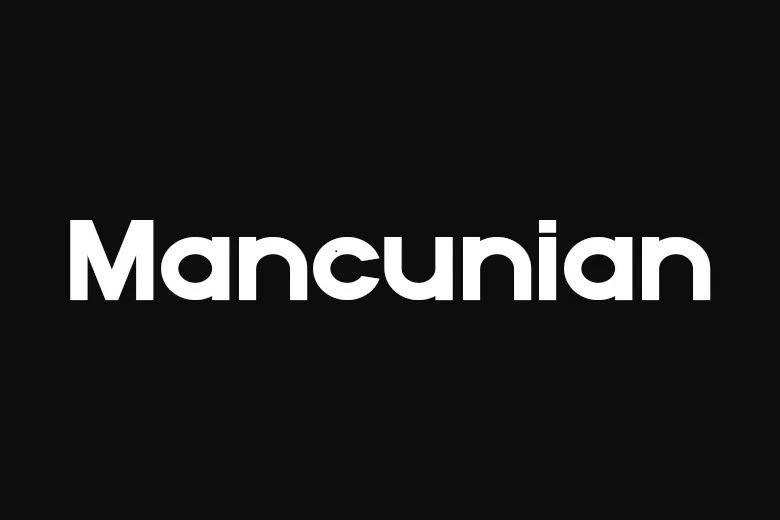
Mancunian Font
Mancunian is a modern sans serif font family that is perfect for almost any project, and will surely amaze you. Font designer, Nathan Dawdy created this font. Mancunian is a free font designed for use with music of Manchester covering from The Smiths and Joy Division to Oasis and The 1975. Mancunian in this release consists of both capital and small alphabets, symbols and other forms of characters.
Mancunian Sans Serif Font Family